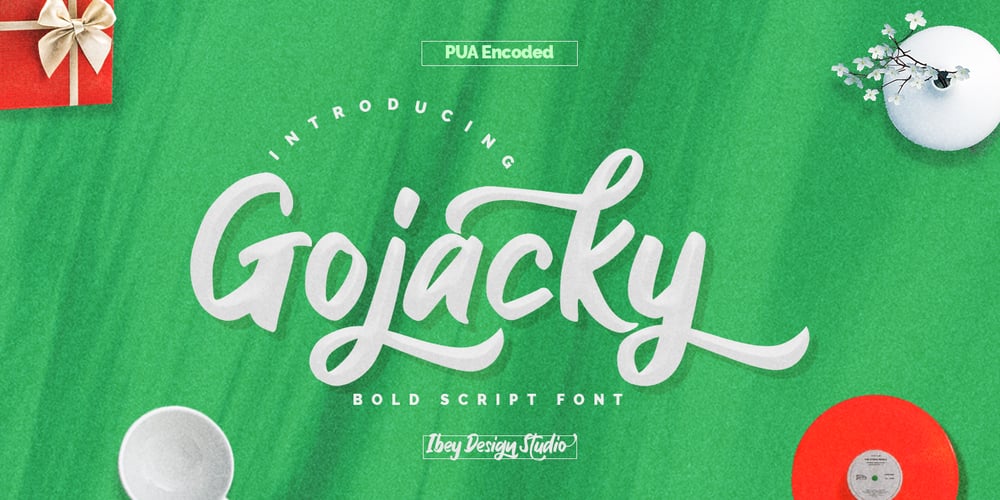
Gojacky Bold Script Font Font Family was designed by Ikrar Bey Khubaib and published by IbeyDesign. Gojacky Bold Script Font contains 1 styles and family package options. Gojacky Bold Script Font is a gorgeous and bold handwritten font, crafted to give your headlines and logotype projects a stylish touch. This font reads strong, confident, and dynamic and can add tons of nostalgic character to your designs.